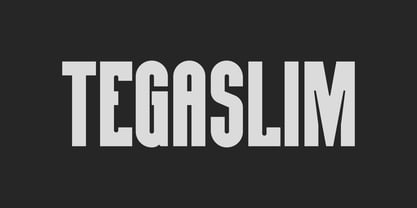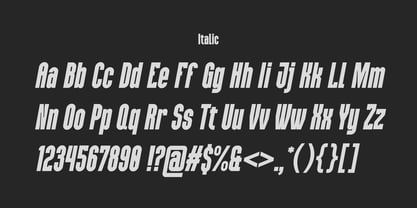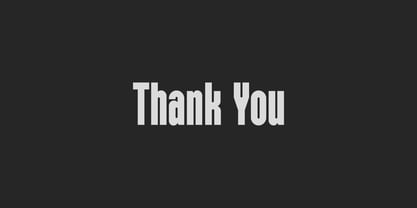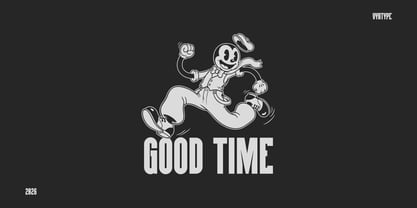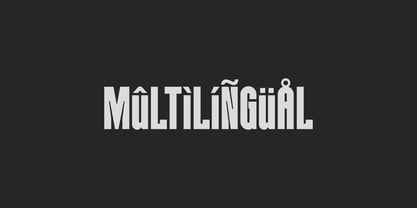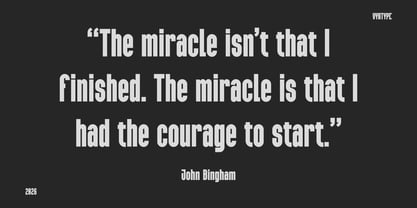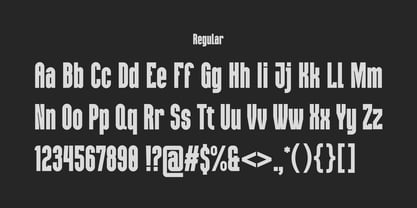
Tegaslim
The Tegaslim Font Family was designed by Hero Novyanto and published by Vyantype Studio. Tegaslim contains 2 styles and family package options. More about this family
Tegaslim is a condensed sans serif typeface that exudes a light and approachable feel. Featuring subtle curves and an open terminal structure, it brings a warm, human touch to high-impact typography. This premium bold sans serif is designed for creators who prioritize clarity and readability. By eliminating the unnecessary, Tegaslim emphasizes balanced proportions and clean, geometric architecture. It delivers a commanding presence both on screen and in print, making it an ideal choice for modern visual identities, branding, editorial design, and packaging. Its versatility and aesthetic appeal make it suitable for a wide range of applications, ensuring your message stands out with sophistication and style.